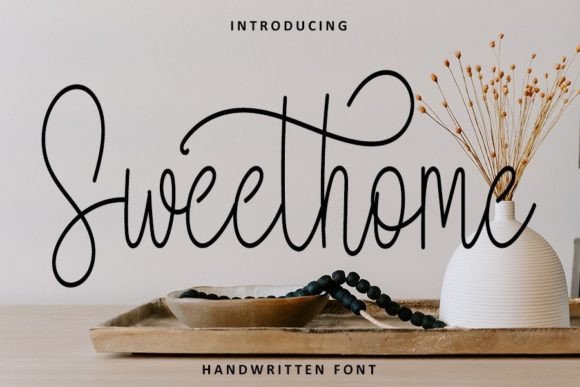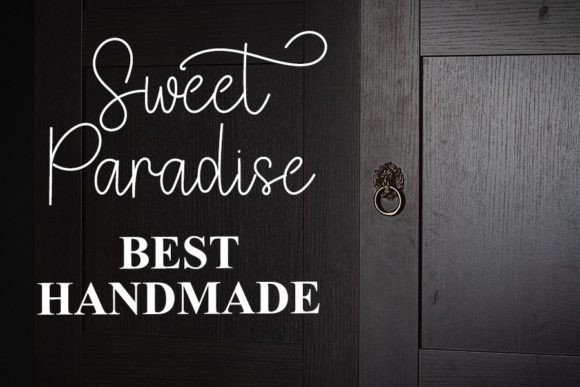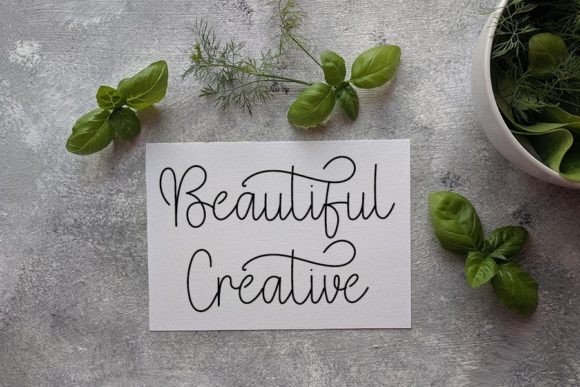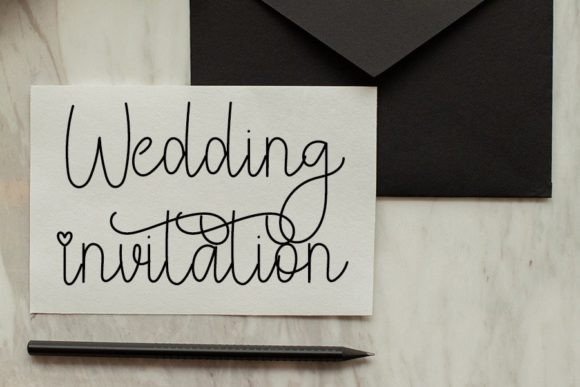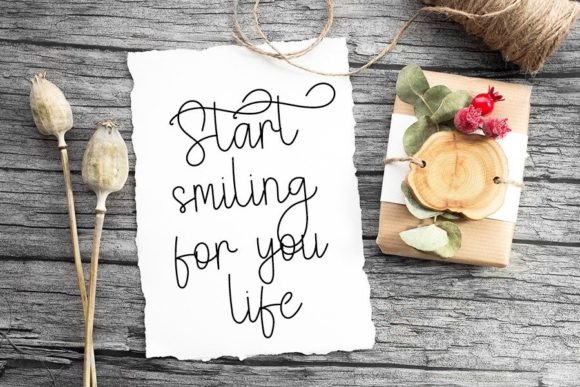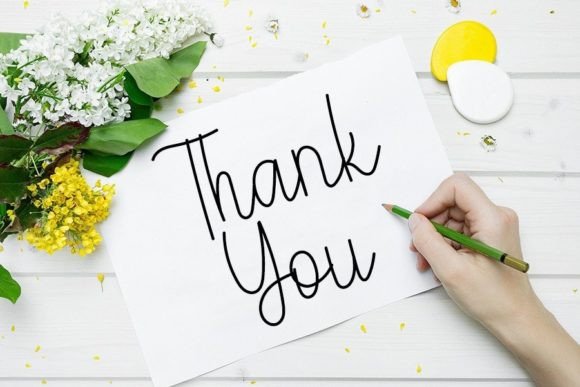
About Sweethome Font
“Sweethome” is a font that effortlessly combines neatness with beauty, creating a handwritten style that is elegant and versatile. Its distinct and timeless design makes it an excellent choice for a wide range of creative projects. Whether you’re working on invitations, greeting cards, posters, branding materials, or any other design, “Sweethome” adds a touch of sophistication and charm to your work.
The font’s clean and well-defined letterforms exude clarity and precision, enhancing readability and visual appeal. Its elegant touch gives your text a refined and graceful look, making it suitable for various applications. “Sweethome” captures attention with its distinct and stylish appearance, transforming your projects into visually stunning and memorable creations.
The versatility of “Sweethome” allows it to adapt seamlessly to different design contexts. Whether used for formal events, creative endeavors, or modern branding, this font elevates the overall aesthetic of your content. Its timeless style ensures that your designs possess a classic and enduring quality, making them suitable for a wide range of creative ventures.
Embrace the unique charm of “Sweethome” and let it inspire your creative endeavors. Its elegant and distinct handwritten style serves as a canvas for your imagination, allowing you to craft spectacular designs that leave a lasting impression. Fall in love with its neat and beautiful qualities, and watch as it transforms your ideas into visually captivating and exquisite masterpieces. With “Sweethome,” you have the perfect tool to bring your creative visions to life, creating designs that resonate with elegance and sophistication.